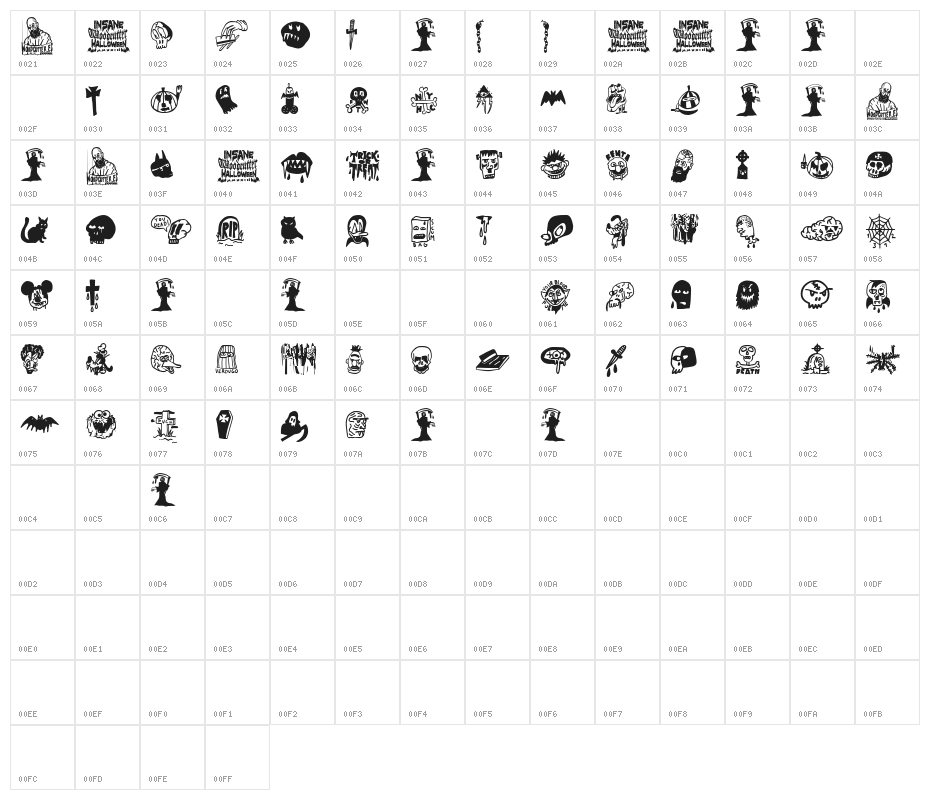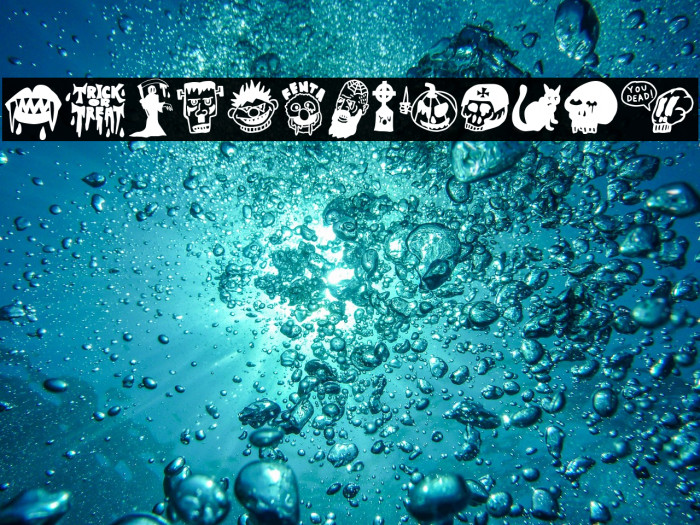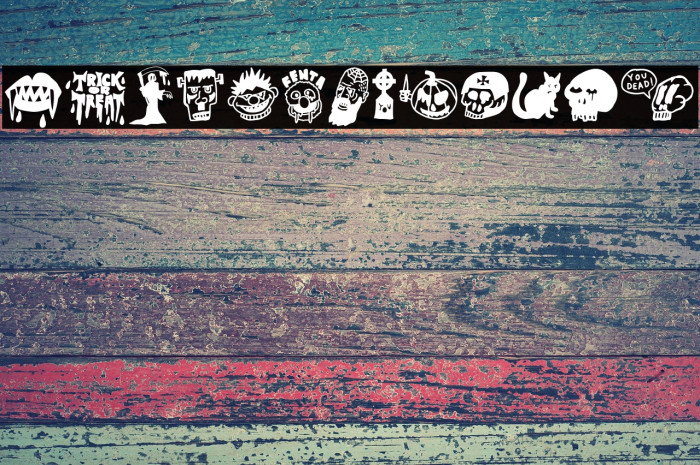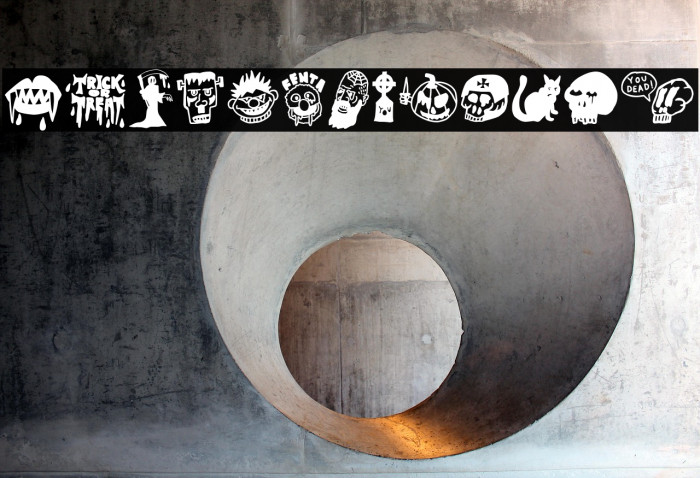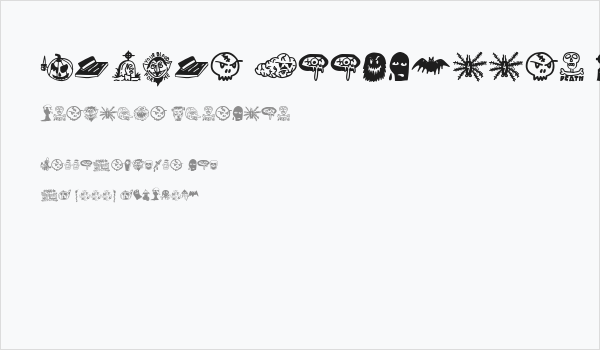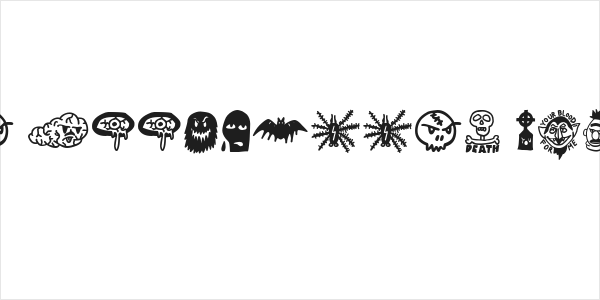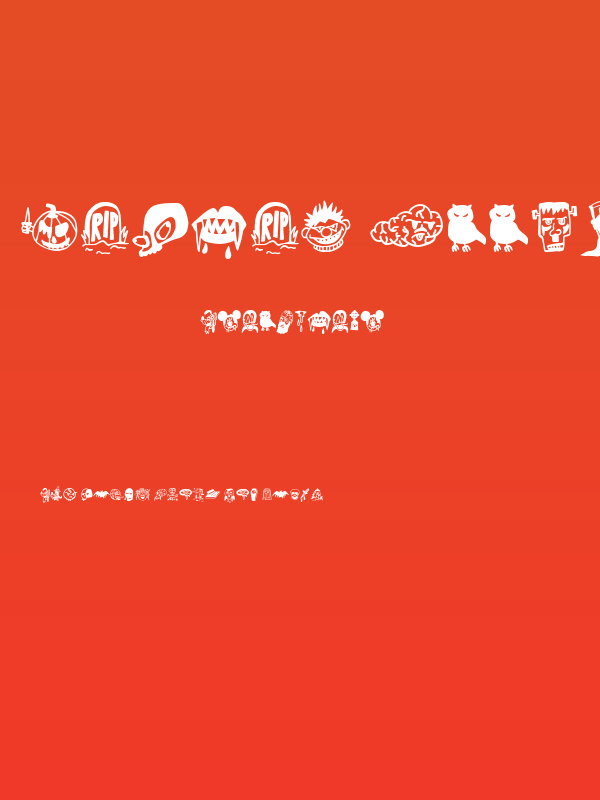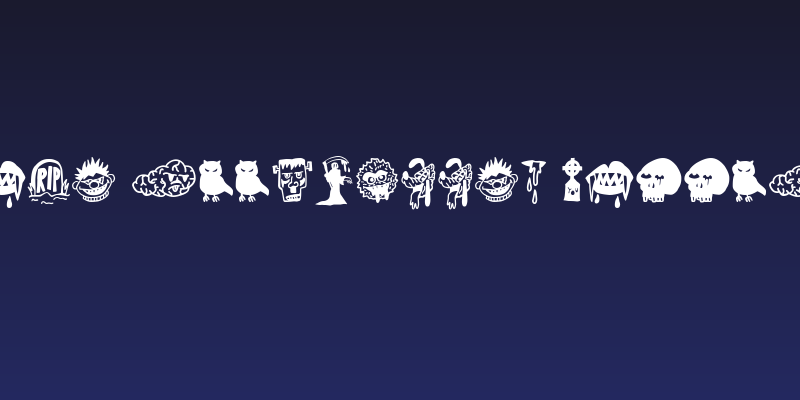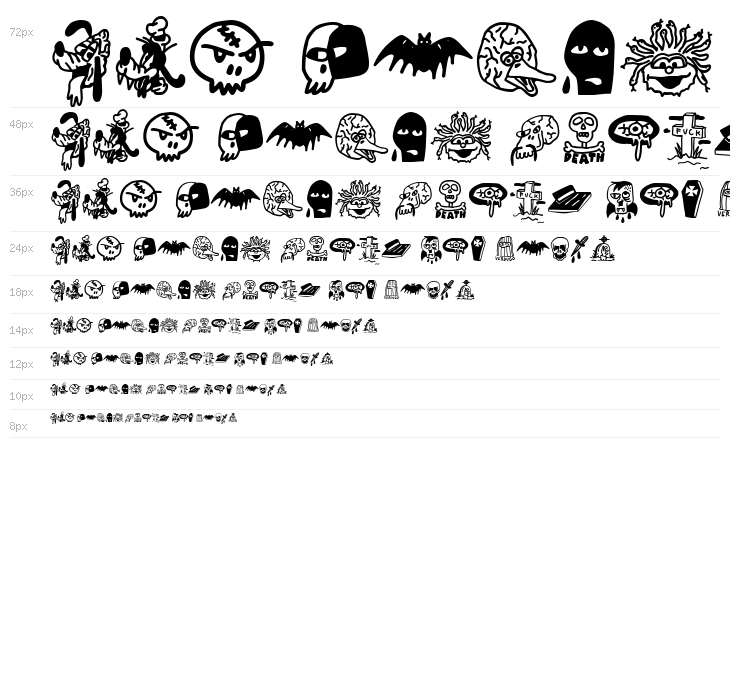
Insane Woodcutter Halloween Font
Insane Woodcutter Halloween Description
This is a highly decorative and thematic font featuring a variety of Halloween-inspired illustrations. Each character is represented by a unique, spooky design, including skulls, pumpkins, ghosts, and other eerie symbols. The style is bold and playful, with a hand-drawn appearance that adds a sense of whimsy and horror. The characters are densely packed with intricate details, making them stand out individually. This font is perfect for creating a chilling atmosphere in any Halloween-themed project.
| Proposed Projects | Ideal for Halloween party invitations, themed posters, horror movie titles, and spooky event flyers. |